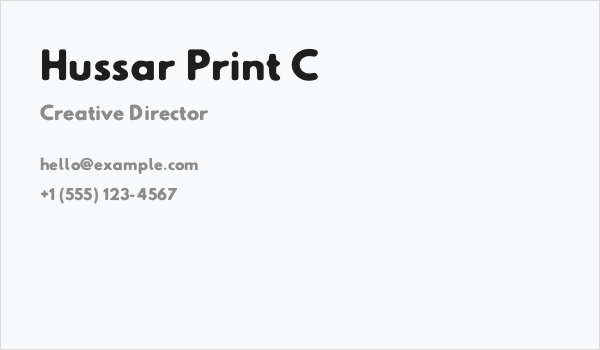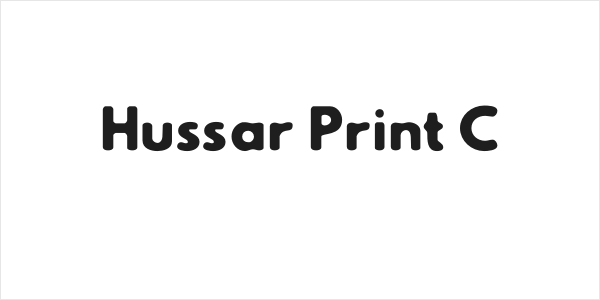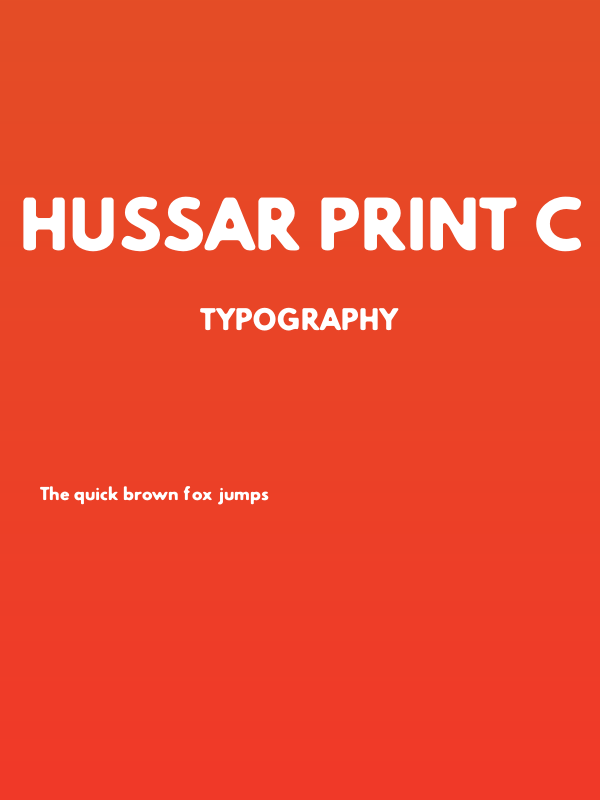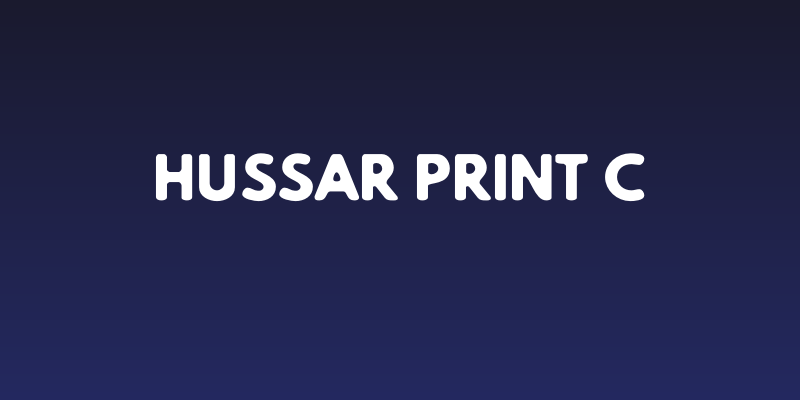
Hussar Print C Font
Hussar Print C Description
This font features bold, rounded characters with a playful and friendly appearance. The letters are uniformly thick, giving them a strong presence on the page. The rounded edges and smooth curves contribute to a soft, approachable look, making it ideal for designs that aim to be inviting and warm. The numerals and special characters maintain the same rounded style, ensuring consistency across all elements. This font's simplicity and clarity make it highly legible, even at smaller sizes, while its boldness ensures it stands out in larger formats.
| Proposed Projects | Ideal for children's books, playful branding, casual invitations, and friendly advertisements. |